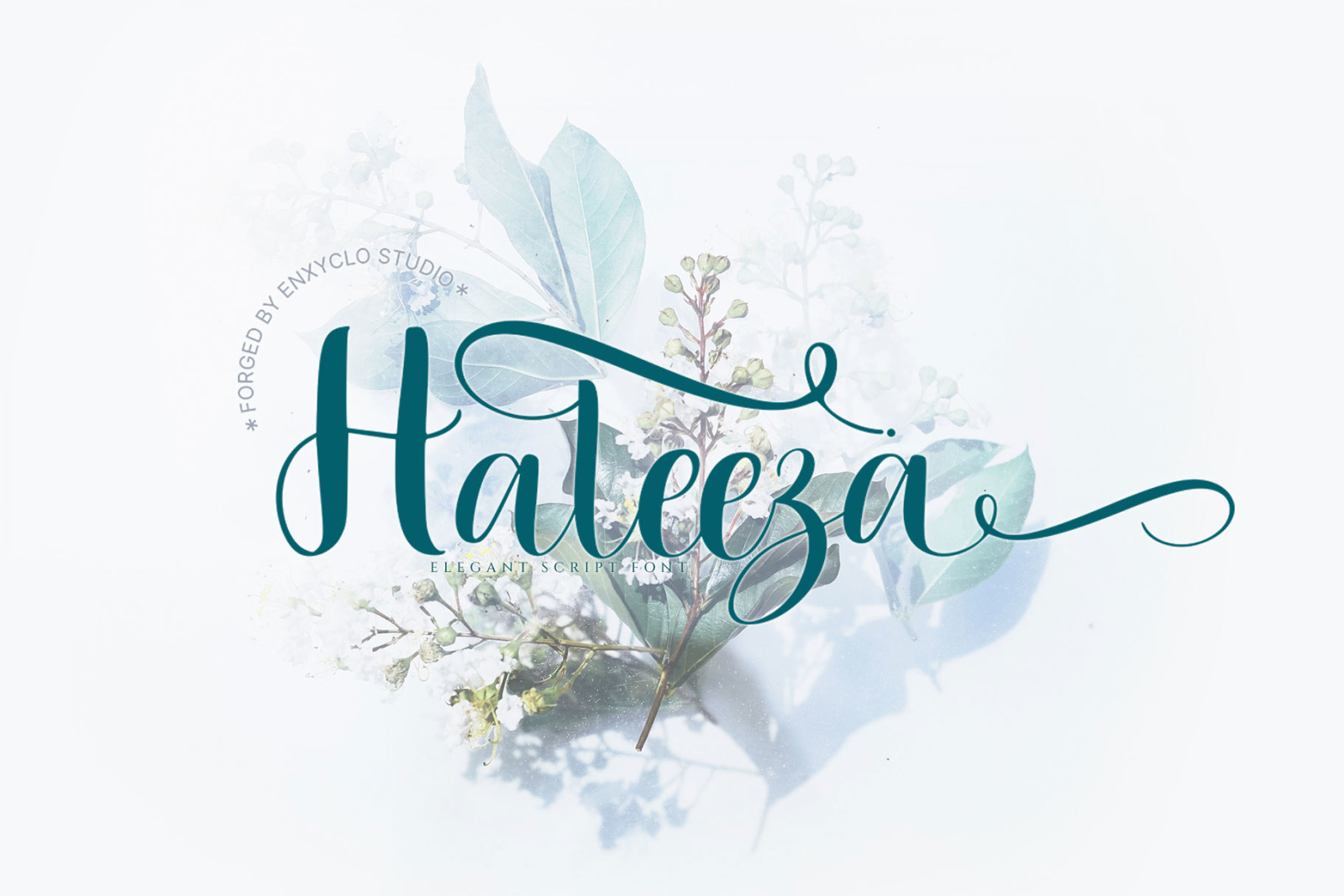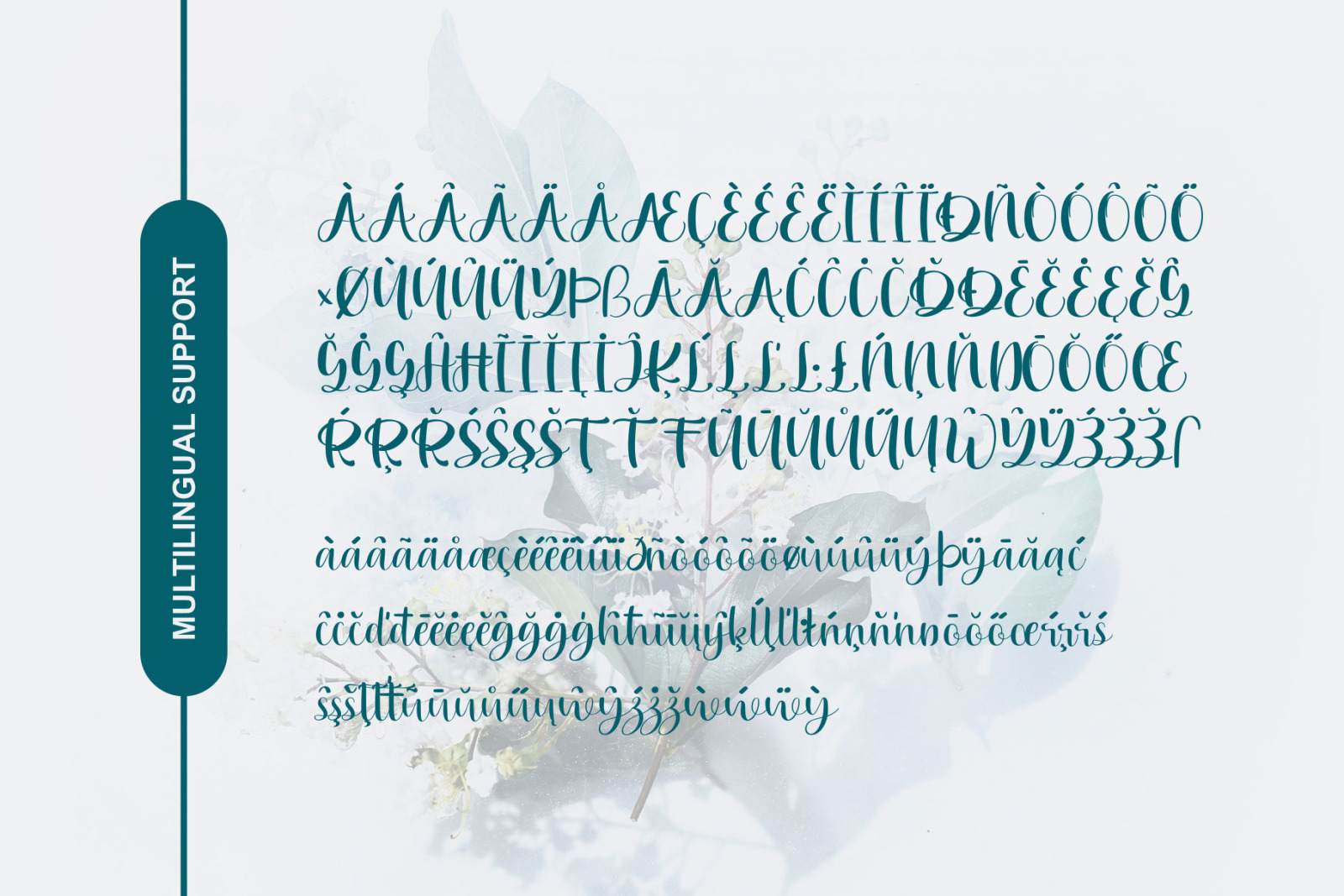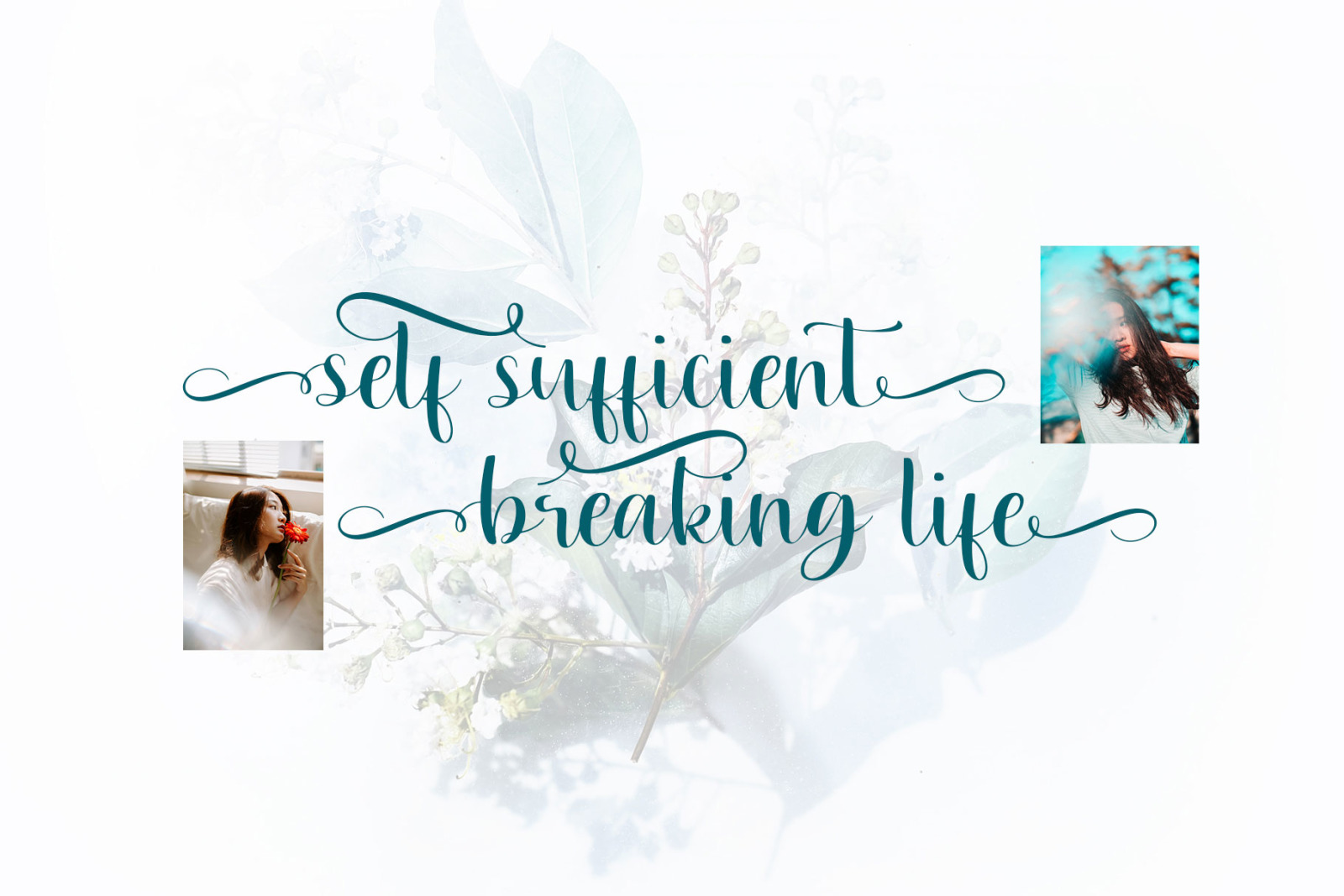
HALEEZA - Elegant Script Romantic Wedding Invitation Font
HALEEZA is handwriting script font perfect for wedding stationery, elegant handwritten logos and branding, websites, signature, headline, product packaging, social media quotes, and more! This font is modern, simple, but still authentic. You will get full set of lowercase and uppercase letters, numerals and punctuation, multilingual symbols, lowercase beginning and ending swashes, and ligatures. See the previews above to get some inspiration on how to use them.
FEATURES
- Contains 453 Glyphs
- Uppercase and Lowercase
- Ligatures & Alternates
- Numeral & Punctuation
- Symbols & Currency
- Stylistic Sets
- Languange Support: Afrikaans, Albanian, Asu, Basque, Bemba, Bena, Breton, Catalan, Chiga, Colognian, Cornish, Croatian, Czech, Danish, Dutch, Embu, English, Esperanto, Estonian, Faroese, Filipino, Finnish, French, Friulian, Galician, Ganda, German, Gusii, Hungarian, Inari Sami, Indonesian, Irish, Italian, Jola-Fonyi, Kabuverdianu, Kalenjin, Kamba, Kikuyu, Kinyarwanda, Latvian, Lithuanian, Lower Sorbian, Luo, Luxembourgish, Luyia, Machame, Makhuwa-Meetto, Makonde, Malagasy, Maltese, Manx, Meru, Morisyen, Northern Sami, North Ndebele, Norwegian Bokmål, Norwegian Nynorsk, Nyankole, Oromo, Polish, Portuguese, Quechua, Romansh, Rombo, Rundi, Rwa, Samburu, Sango, Sangu, Scottish Gaelic, Sena, Serbian, Shambala, Shona, Slovak, Soga, Somali, Spanish, Swahili, Swedish, Swiss German, Taita, Teso, Turkish, Upper Sorbian, Uzbek (Latin), Volapük, Vunjo, Walser, Welsh, Western Frisian, Zulu.